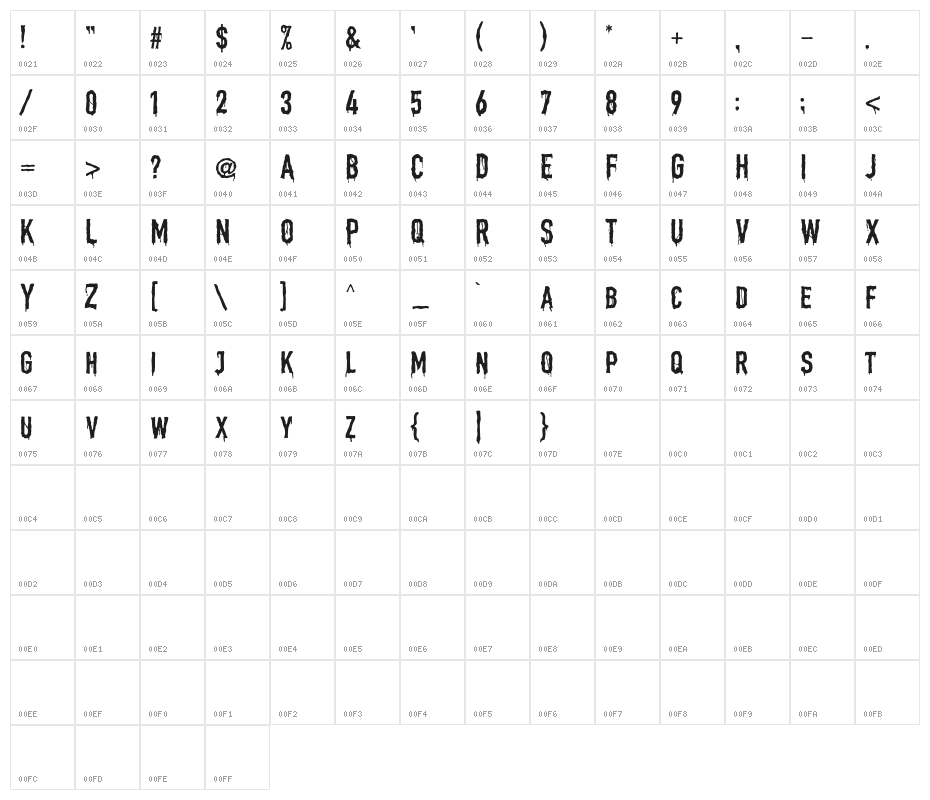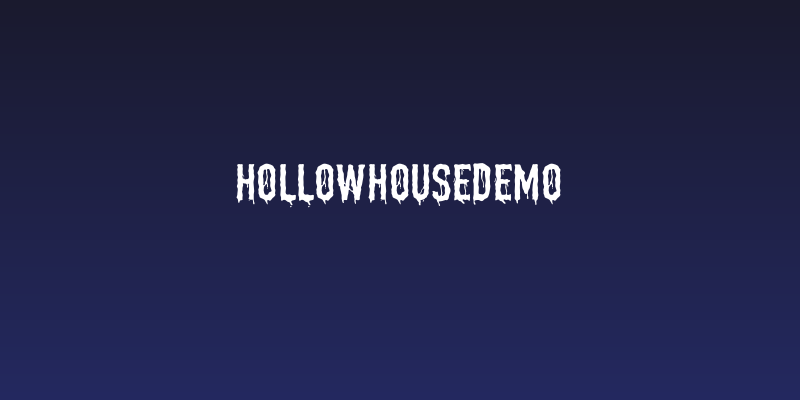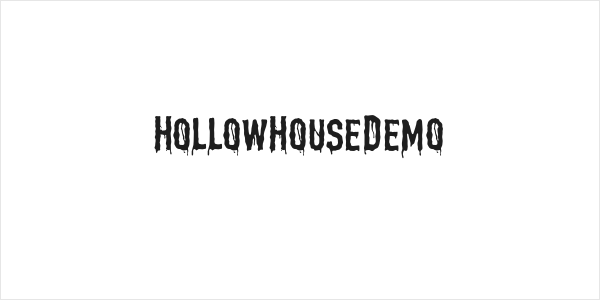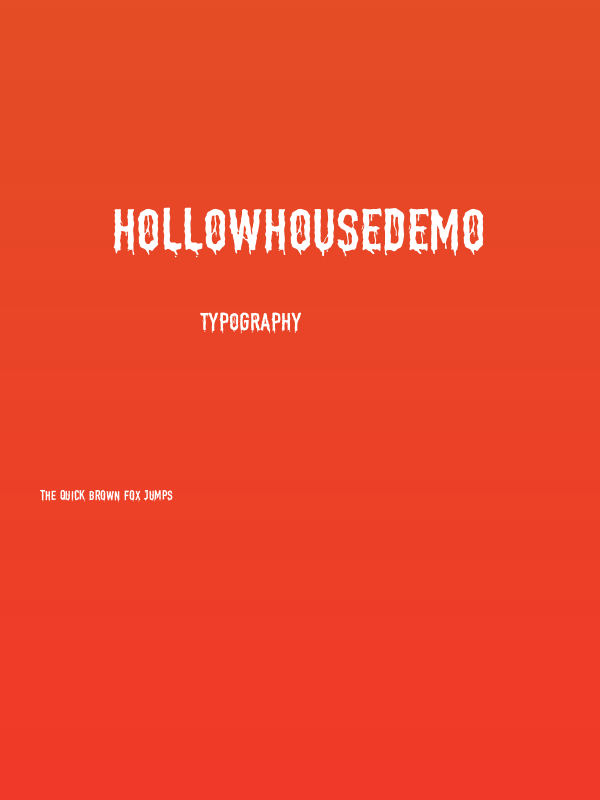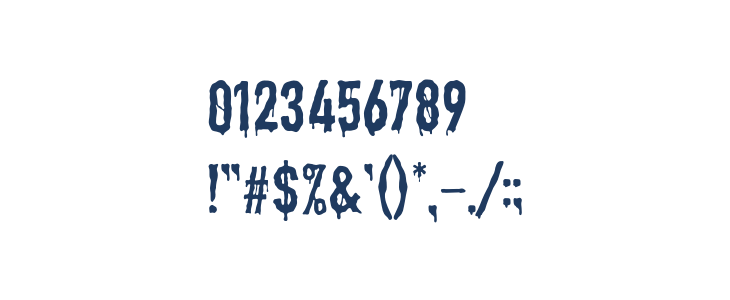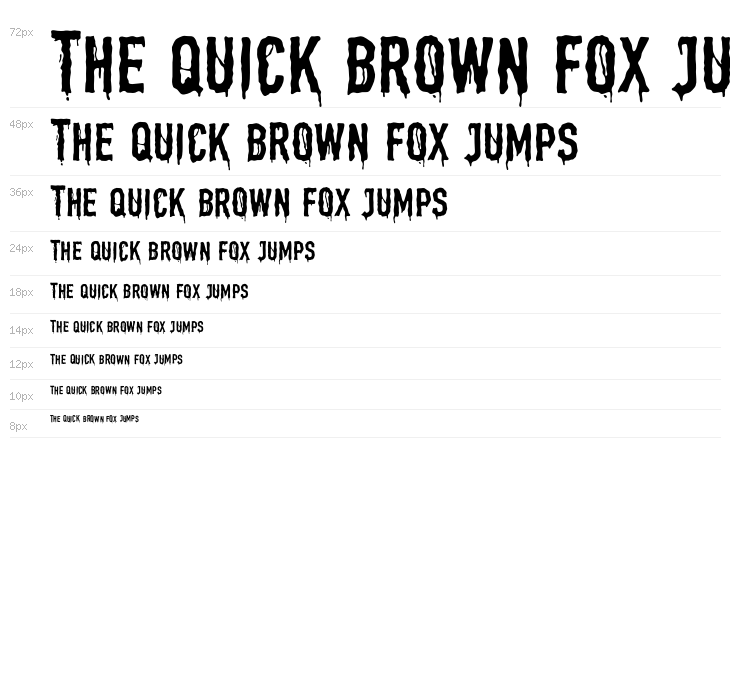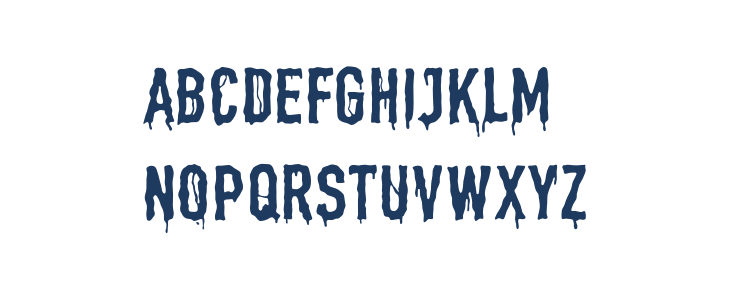
HollowHouseDemo Font
HollowHouseDemo Description
This font features a distinctive, eerie design with letters that appear to be dripping or melting, reminiscent of a horror or Halloween theme. The uppercase and lowercase letters maintain a consistent style, with jagged edges and irregular shapes that enhance its unsettling appearance. Numbers and special characters follow the same aesthetic, ensuring a cohesive look across all text elements. The font's unique style makes it ideal for creating a spooky atmosphere in designs, perfect for themed events or creative projects that require a touch of the macabre.
| Proposed Projects | Perfect for Halloween invitations, horror movie posters, haunted house flyers, and themed event branding. |